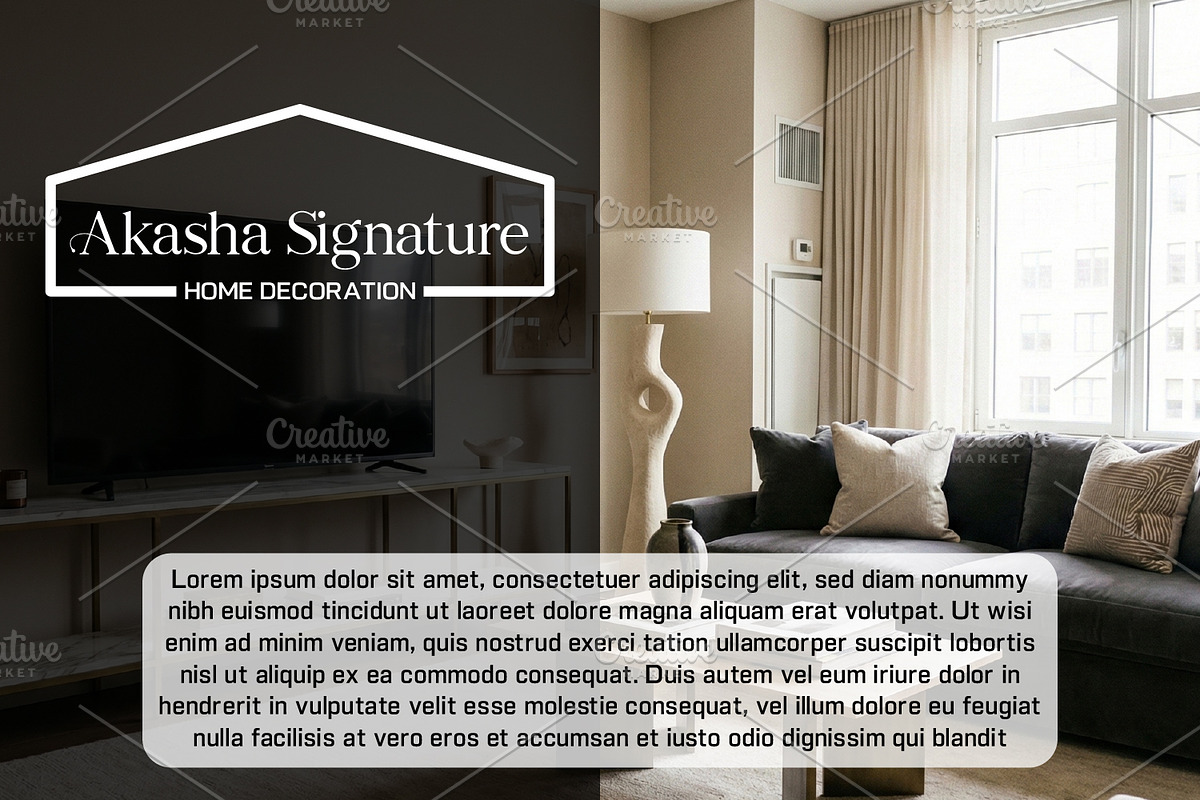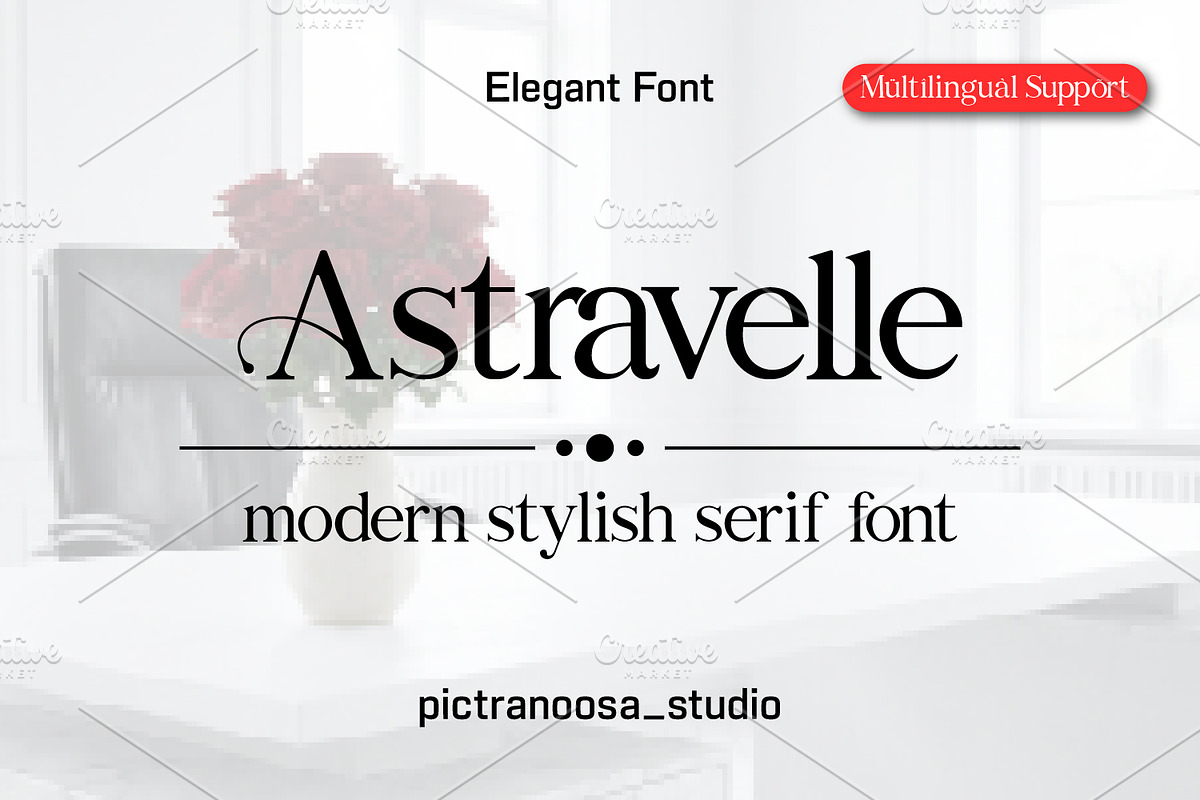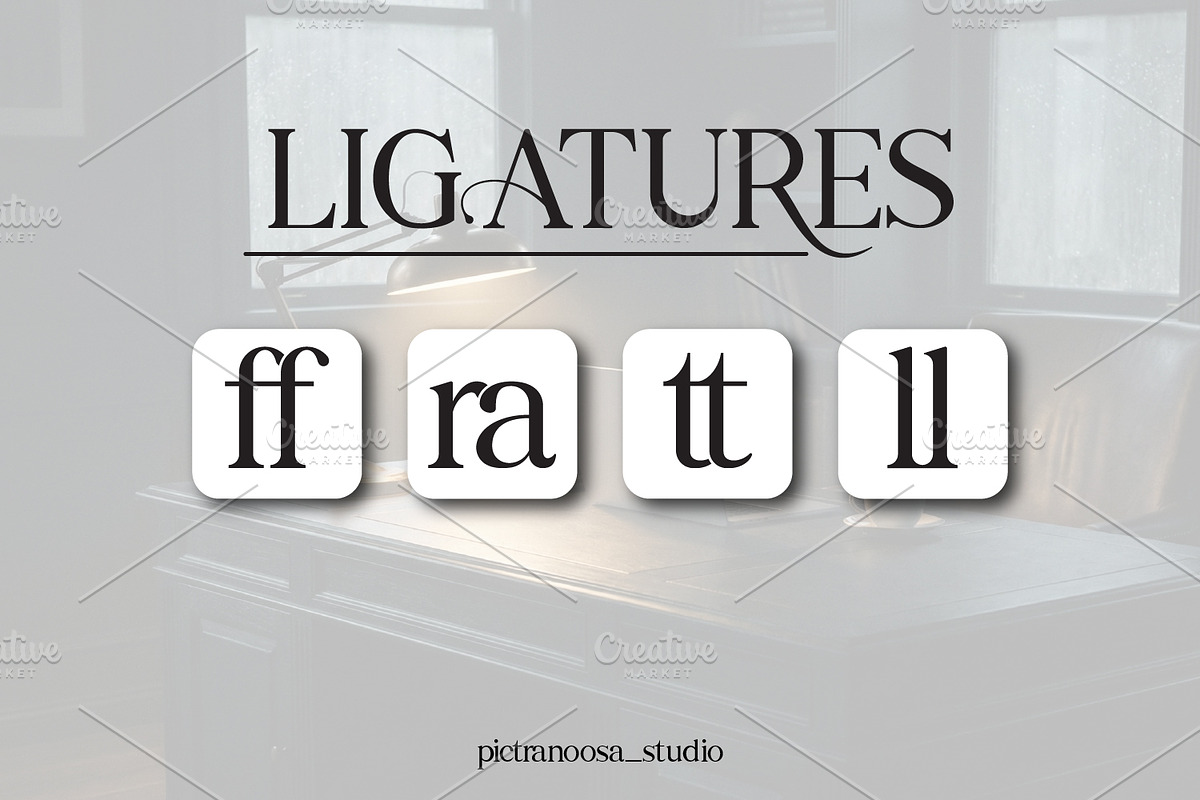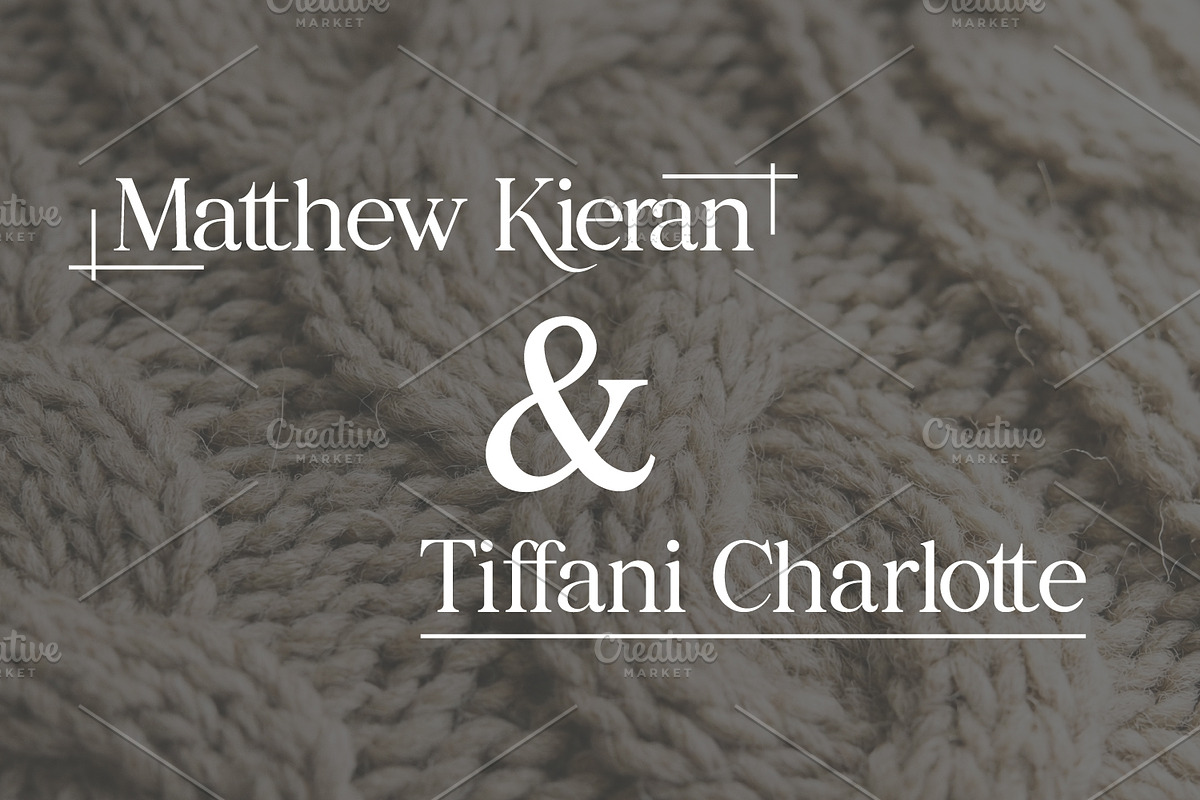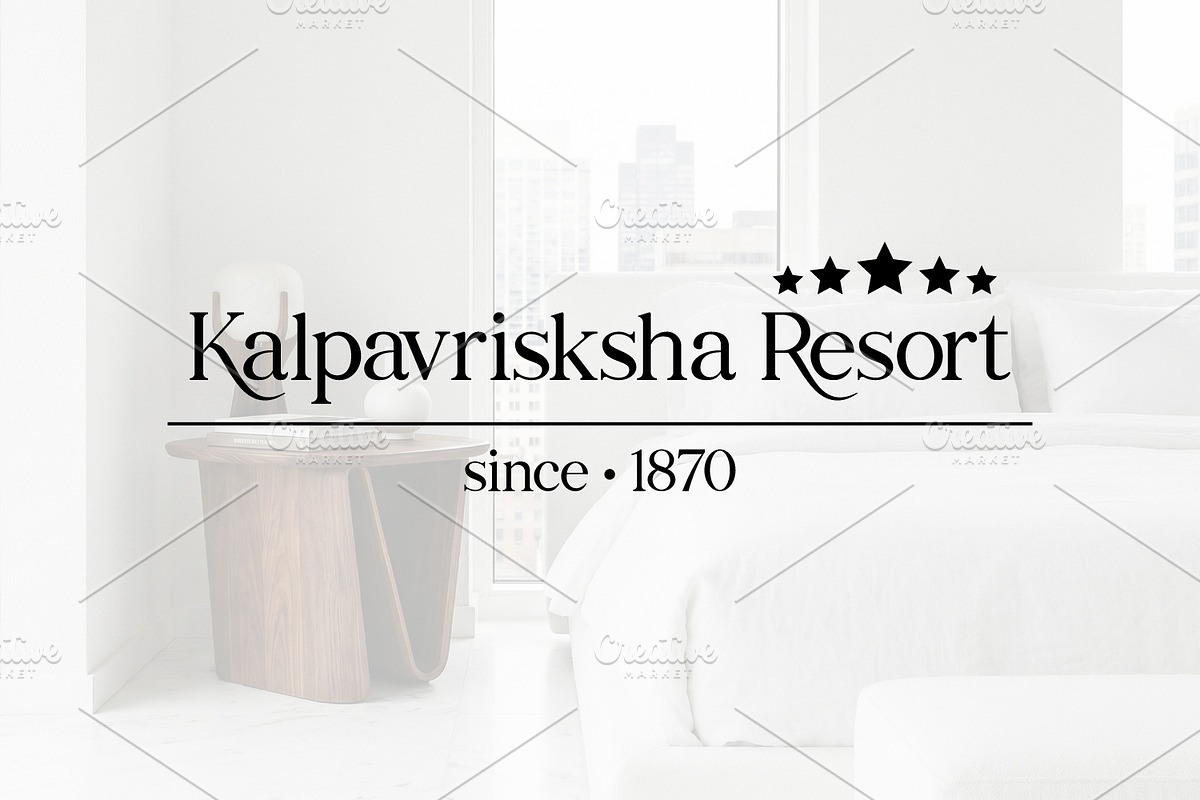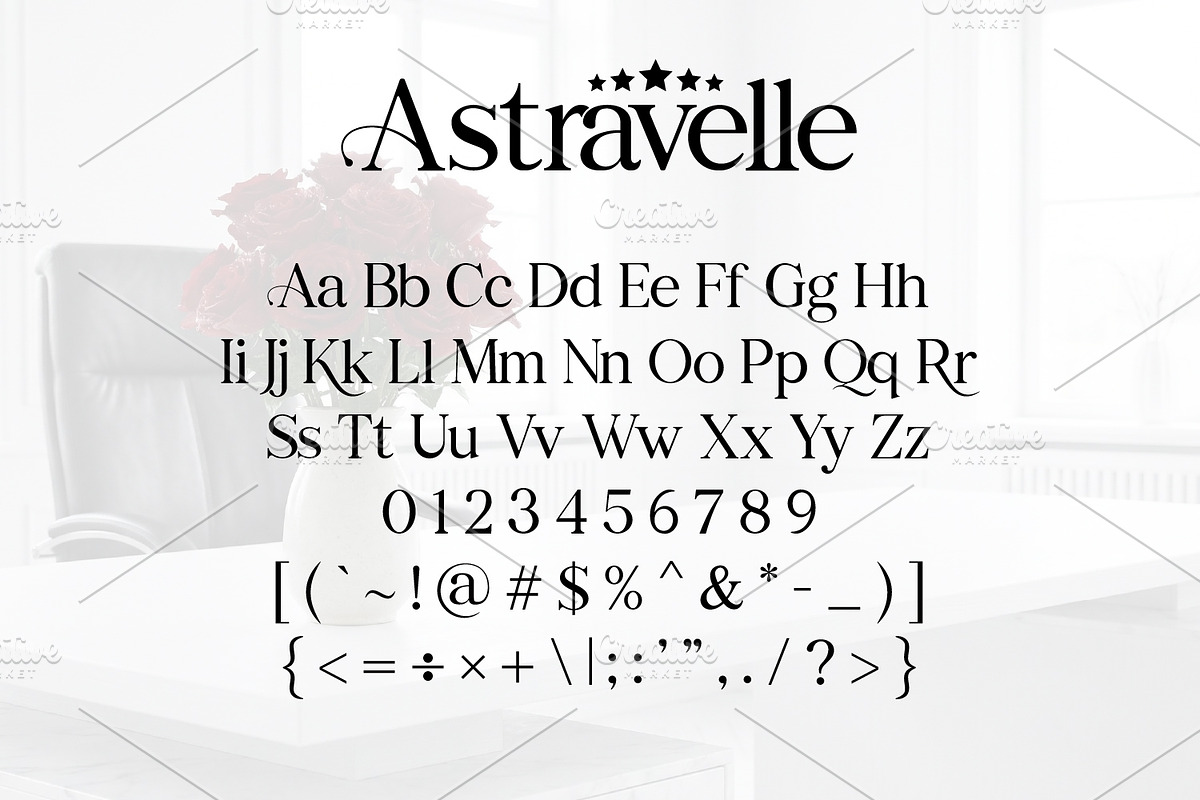
Astravelle serif
Astravelle is a sophisticated modern serif typeface that blends timeless elegance with contemporary chic. Designed with high contrast and refined curves, this font is crafted to bring a touch of luxury to your creative projects. Whether you are designing a high-end fashion brand, a minimalist logo, an editorial layout, or wedding invitations, Astravelle offers the perfect balance of legibility and artistic flair. Its unique character shapes make it stand out in headlines while remaining graceful in body text. What’s Included:
- Full Uppercase & Lowercase set.
- Numbers & Punctuation.
- Elegant Ligatures for that custom-lettered look. Elevate your branding to the next level with Astravelle—where classic beauty meets modern sophistication.